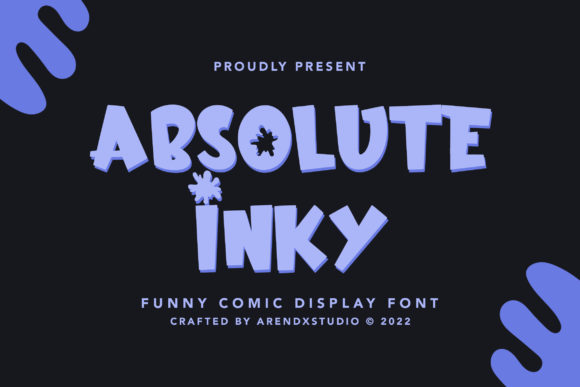
Behold, the ingenious evolution of typography – Absolute Inky Font, the ultimate font family specifically designed for the captivating world of comics. This display font is the brainchild of the creative genius Arendxstudio, renowned for their artistic flair in crafting evocative and engaging fonts.
Absolute Inky is an artistic masterpiece, meticulously designed to evoke the playful charm and dynamic energy of comic books and graphic novels. Its distinctive characters dance across the page, brimming with personality and expression, inviting readers into a world where imagination runs wild.
With Absolute Inky, your creative possibilities are limitless. Dive into a realm of visual storytelling, where each letter becomes a captivating character, each word a vibrant scene. Unleash your imagination and watch as your comic book creations leap off the page, bursting with life and intrigue.
But Absolute Inky's versatility extends far beyond the comic book realm. Its playful nature lends itself effortlessly to branding projects, logos, and media posts, injecting a touch of whimsy and creativity into your designs. Imagine your brand name adorned with the vibrant strokes of Absolute Inky, instantly capturing attention and leaving a lasting impression.
Your wedding designs will exude a unique charm with Absolute Inky's playful touch, transforming invitations and stationery into delightful keepsakes. Product packaging and labels adorned with Absolute Inky's distinctive characters will entice customers with their playful appeal, making your products stand out on shelves.
Embark on a typographic adventure with Absolute Inky, where every letter tells a story and every word captivates the imagination. Unleash your creativity and let your designs dance with delight. Experience the magic of Absolute Inky today!